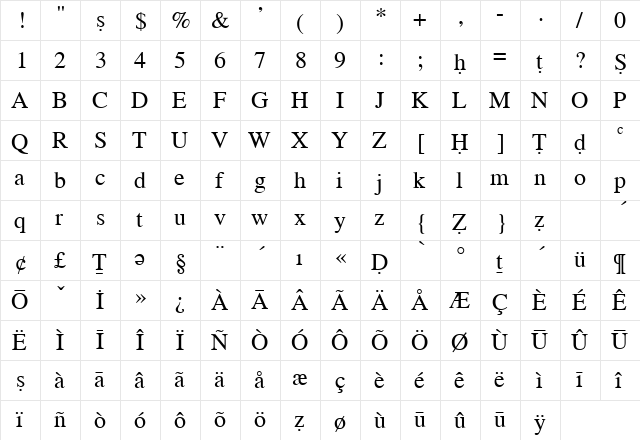
Al-Huroof Roman
Design Context for Al-Huroof Typeface
Al-Huroof offers clean, dependable letterforms without strong stylistic allegiance, making it a practical choice for designers who need flexibility.